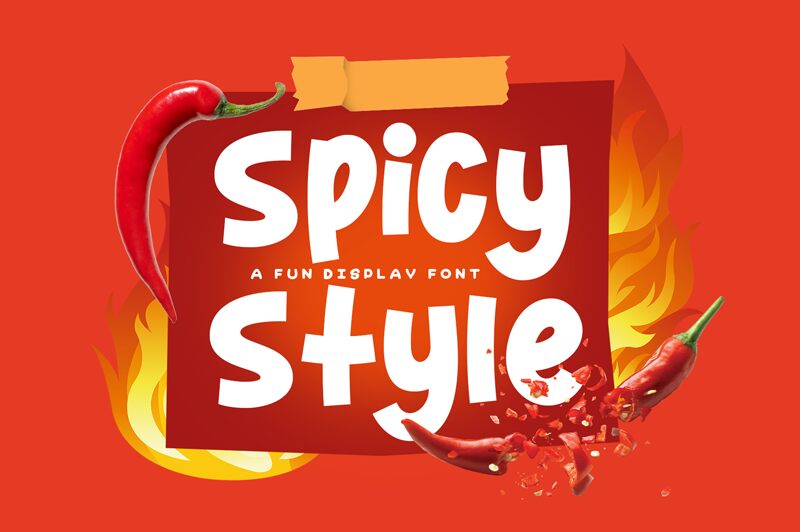
Spicy Style
Spicy Style, designed by Khurasan, is a vibrant display font that adds a playful touch to any project. Its bold weight and fun comic style make it perfect for creating eye-catching headlines, logos, and posters. Whether you're designing a children's book cover or crafting an attention-grabbing social media graphic, Spicy Style will bring your text to life with its energetic personality. With its unique blend of boldness and whimsy, this font is suitable for a variety of projects including advertising campaigns, party invitations, and even animated videos.